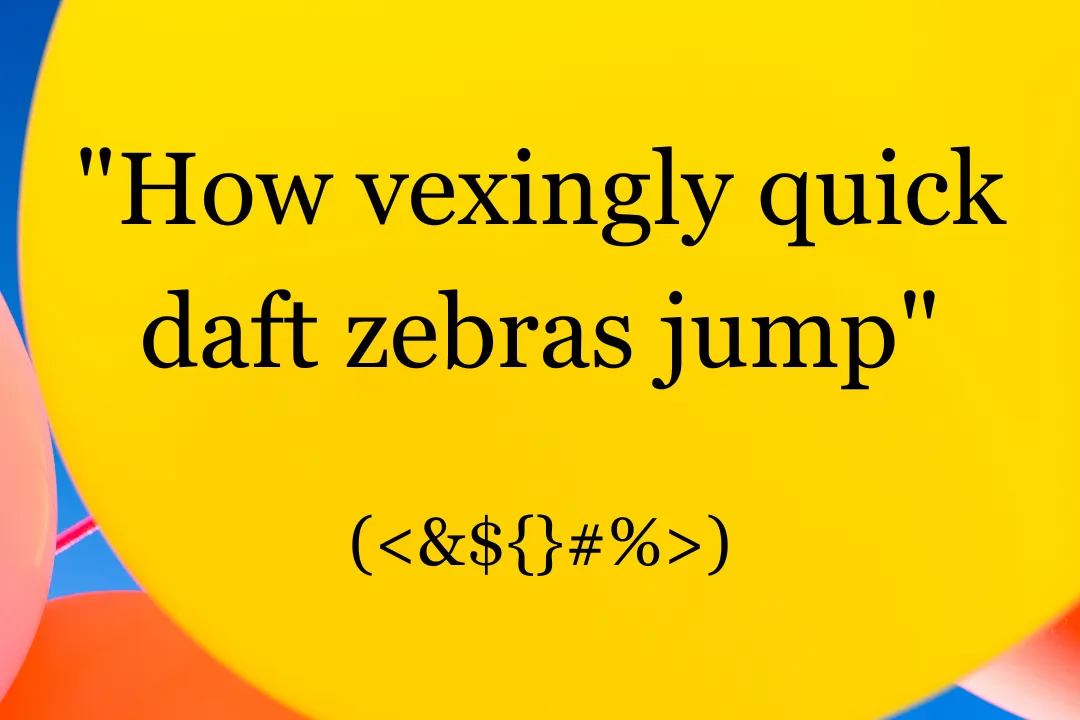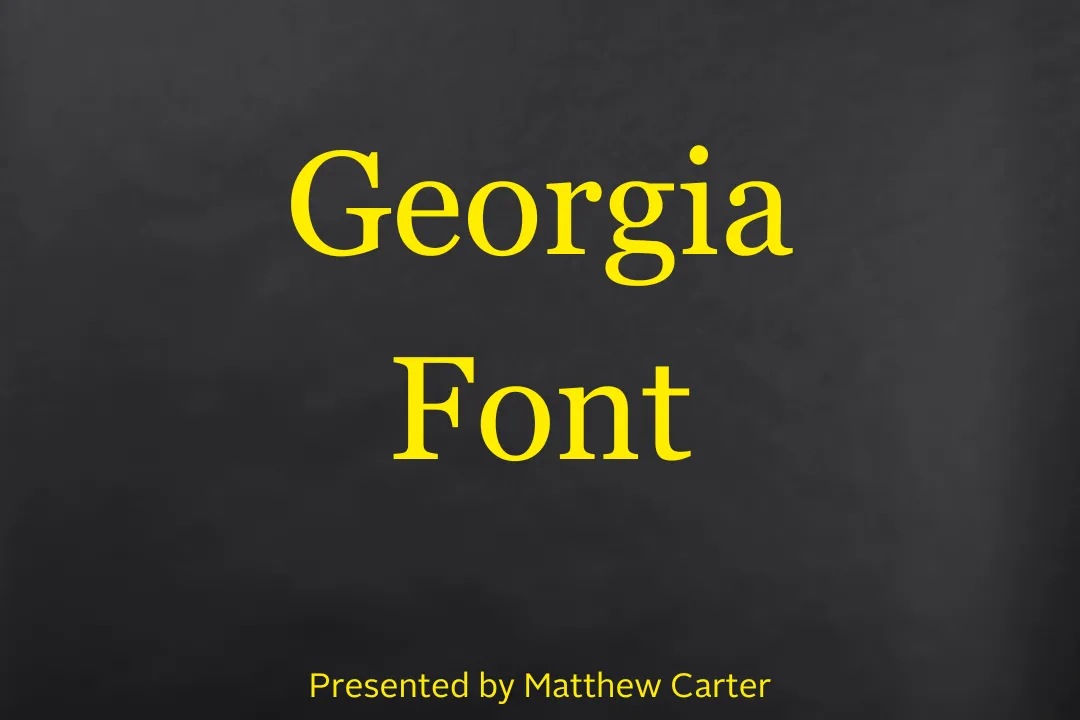
About Georgia Font
Georgia Font is a serif typeface that was finally designed in the year 1993 by brilliant designer Matthew Carter for Microsoft. It was designed to be a highly legible typeface that is easy to read on screens, and this was specifically optimized for use on low-resolution screens.
The design of the Georgia typeface is based on traditional serif typefaces, and it features a high x-height and open letterforms to increase legibility. It is also designed to be positively legible at small sizes, making it a fine selection for body text. This family is included with all versions of Windows and Microsoft Office. You can explore it on google. its alternative Playfair display font has the same category and styles.
The generator tool of this family is very effective for various designs. In addition to its legibility and readability, Georgia is also known for its elegant, classic design. The typeface features a classic serif design with a slight contrast in the strokes, and its letterforms are slightly condensed to save space. The font is also available in multiple variations such as Georgia Bold, Georgia Italic, and Georgia Bold Italic.
The design also includes small serifs, which help to increase the sense of elegance and refinement. It is also a versatile typeface, it can be used effectively in a wide range of contexts and design projects.
About Designer
Matthew Carter is a British type designer who is known for designing some of the most widely used typefaces of the digital era. He began his career working for the Mergenthaler Linotype Company in the 1960s, where he designed several typefaces that became widely used in the printing industry.
In the 1980s, he moved to the United States and began working on typefaces for digital use. He designed many typefaces for digital use, including Georgia, Verdana, and Tahoma. Carter’s designs are notable for their elegance, readability, and versatility. He is considered to be one of the most important type designers of the digital era, and his work has had a significant impact on the design of digital typefaces.
Who can use Georgia Font
This is a versatile typeface that can be used virtually in a vast range of contexts and creation projects. Some of the most common uses of the Georgia font include:
- Body Text: Georgia is a popular choice for body text because of its high legibility and readability. It is designed to be easy to read at small sizes, making it a good choice for use in books, magazines, newspapers, and other printed materials.
- Headlines and Titles: The elegant, classic design of Georgia makes it a good choice for creating headlines and titles. It is often used in print and digital design projects to create a sense of elegance and refinement.
- Websites and Digital Documents: This is one of the most widely used typefaces on the web, and it is often used to create website content and digital documents. The font is optimized for use on low-resolution screens, making it a good choice for use on the web.
- Email and Presentations: It is also a popular choice for body text in emails, PowerPoint presentations, and many other digital documents.
- Branding and Identity: The elegant, classic design of Georgia makes it a good choice for use in branding and identity design. It can be used to create a sense of elegance and refinement in a brand or identity.